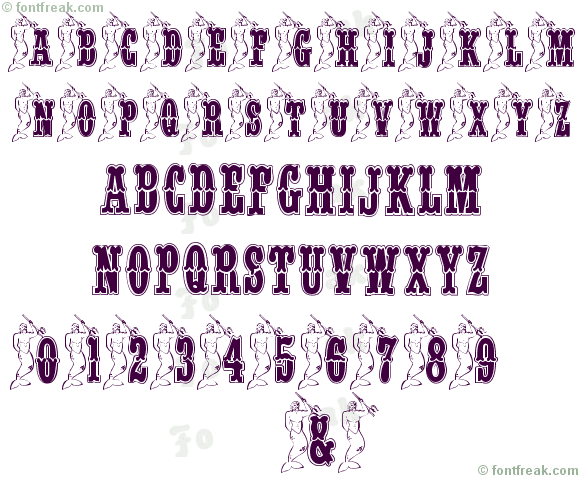
BJF Merman
Merman by Blue Jay Font Studio is a captivating display font that embraces a whimsical and playful aesthetic. This unique typeface features bold, rounded letterforms with a distinctive stroke weight that combines both elegance and fun. The font's generous spacing contributes to its readability while maintaining an eye-catching presence, making it ideal for a variety of creative applications. The charming curves and slight decorative elements lend a sense of fantasy, reminiscent of underwater themes, which is fitting given its name.
The Merman font is particularly well-suited for use in wedding invitations, where its enchanting style can add a touch of romance and whimsy. It also excels in movie posters, especially for films with adventurous or fantastical themes, providing an engaging visual appeal that draws viewers in. Additionally, restaurant menus can benefit from the Merman font, giving a fresh and inviting look that enhances the dining experience. Small business branding, especially in the creative arts or children’s products, can leverage this font to create a memorable and unique identity. Content creators looking to spice up their blogs or social media posts will find this font an excellent choice for headings and titles, ensuring that their work stands out.
What truly sets Merman apart is its ability to blend charm with versatility, providing users with a fresh option that captures attention while remaining functional. Whether you're designing for a wedding or a whimsical branding project, Merman is certain to leave an impression.